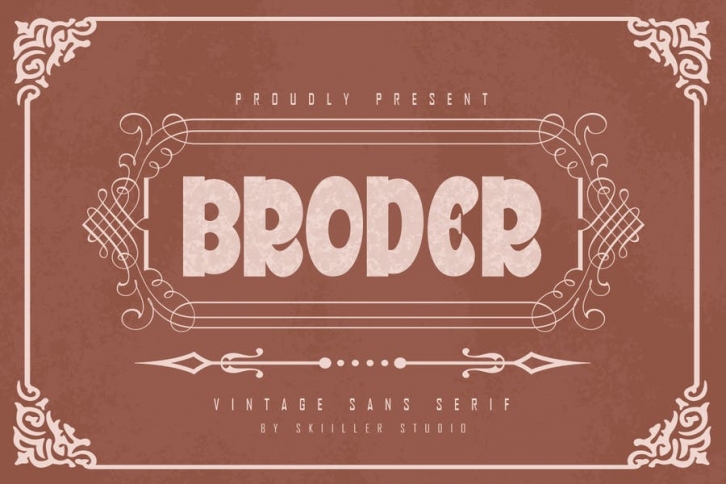
Broder is a cool and bold sans serif font. This font is ideal for writing web designs, business cards, or pretty much anything else that requires a unique touch.